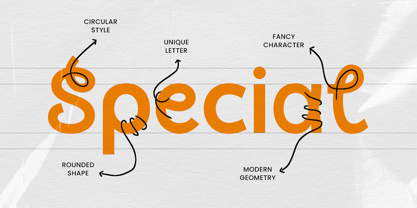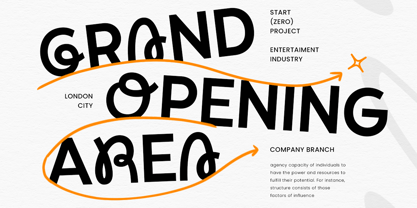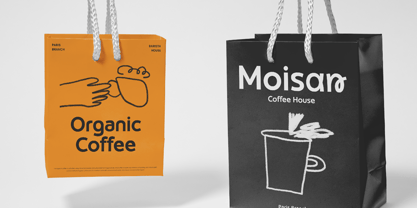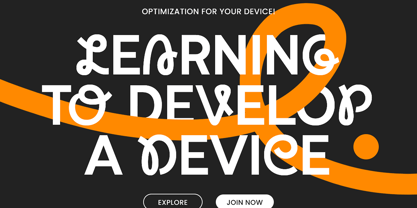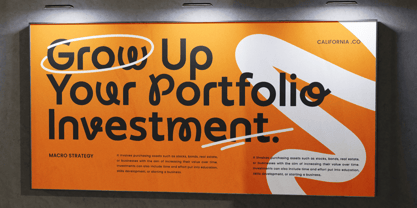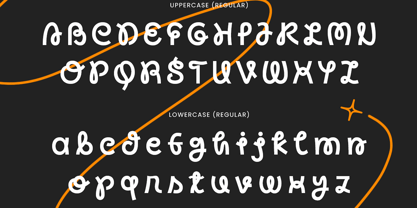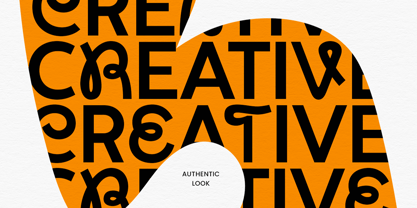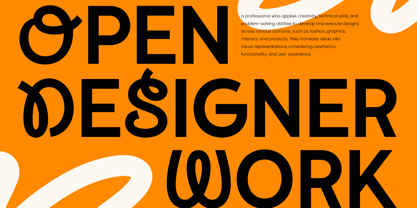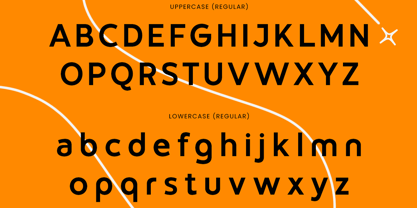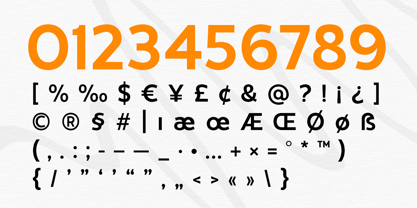
Lahesan
The Lahesan Font Family was designed by Olivia Love and published by Only Fonts. Lahesan contains 1 styles. More about this family
Lahesan – Unique Experimental Logo Font Lahesan is a bold experimental logo font designed for creatives who aim to challenge conventions and craft unforgettable visual identities. This font blends a modern sans serif structure with expressive handwritten influences, resulting in a distinctive typographic style that feels innovative, artistic, and full of personality. Its unconventional letterforms and creative alternates ensure that every composition is unique, allowing brands to stand out confidently in today's competitive design landscape. Inspired by the freedom to explore new design directions, Lahesan combines clean geometry with handcrafted character, creating typography that is both functional and expressive. Whether you are developing a cutting-edge startup identity, a creative agency logo, fashion branding, music artwork, packaging, editorial layouts, websites, or social media campaigns, Lahesan offers the flexibility to bring fresh ideas to life. Designed for maximum creative potential, Lahesan includes a collection of alternate characters that enable experimentation with custom letter combinations and unique logo concepts. The balance between modern minimalism and artistic expression makes it suitable for a wide variety of industries, from technology and entertainment to lifestyle brands and contemporary businesses. Its carefully crafted proportions ensure excellent readability while maintaining a bold and memorable appearance across both print and digital media. With its original personality and versatile design, Lahesan transforms ordinary typography into a creative visual statement that captures attention and leaves a lasting impression. It is the perfect choice for designers seeking a font that combines innovation, versatility, and modern branding appeal. Lahesan Font Features: • Unique experimental logo style • Modern sans serif with handwritten influence • Alternate characters included • Uppercase and lowercase letters • Numerals, punctuation, and symbols • OpenType features • Multilingual support • Perfect for logos, branding, packaging, editorials, websites, and creative marketing projects • Suitable for both print and digital applications